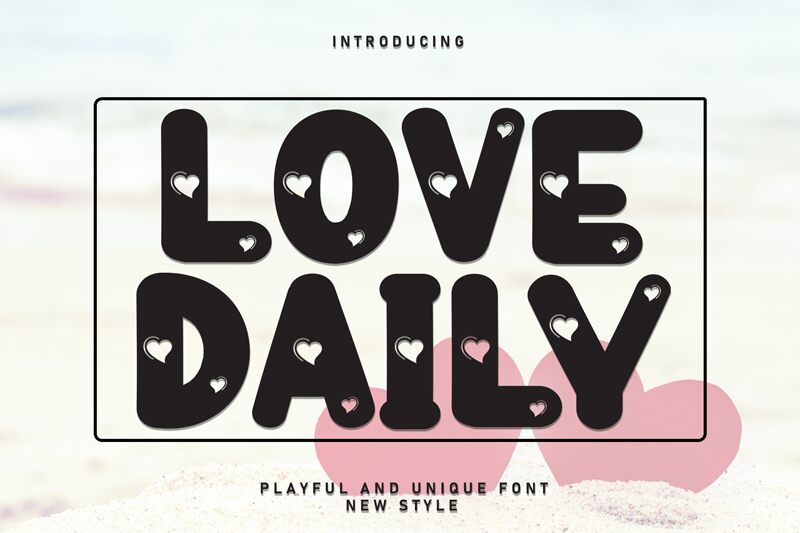
Love Daily
Love Daily font by Scratchones is a free Valentine holiday typeface that looks like it’s been cut from glossy candy hearts. Chunky, rounded letters feel soft and huggable, while the scattered heart cutouts add a playful, handmade touch. The bold, ink-black shapes read clearly even at smaller sizes, so you get instant “love” energy without sacrificing legibility.
Using Love Daily, your romantic designs get that sweet, slightly cheeky vibe that works beautifully for Valentine’s cards, party invitations, classroom printables, gift tags, social media posts, and holiday sale graphics. This free font really pops when used large and centered, paired with a clean sans serif for body text to keep everything readable and grounded.